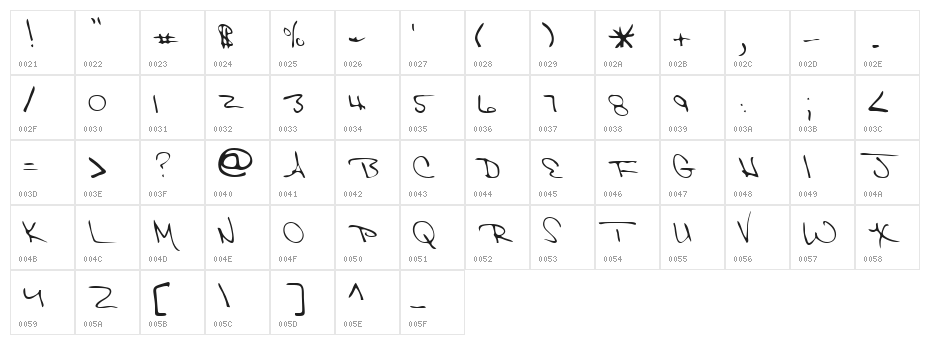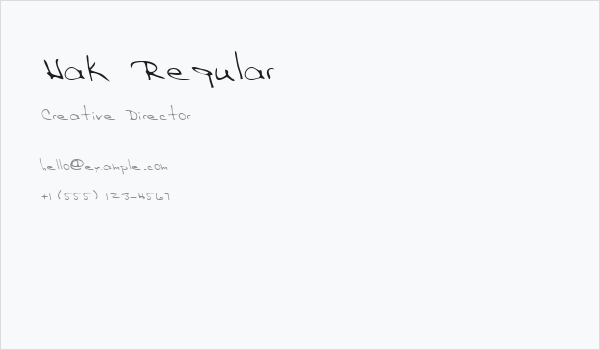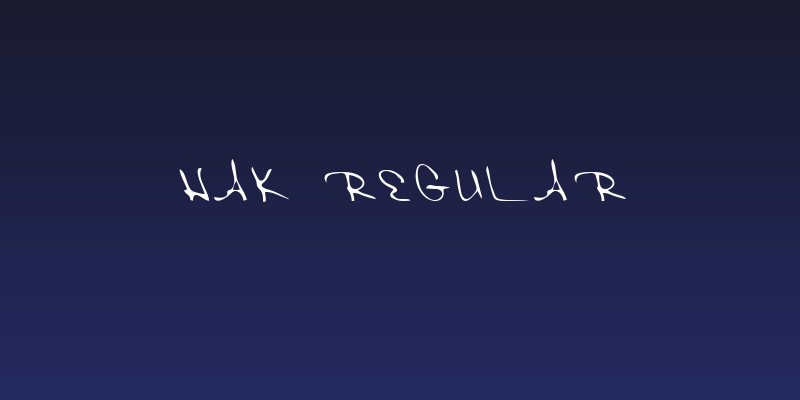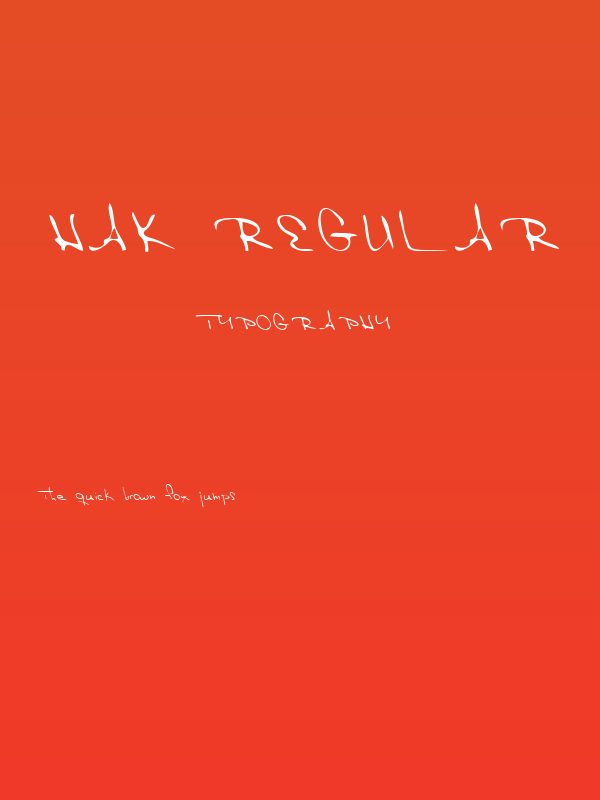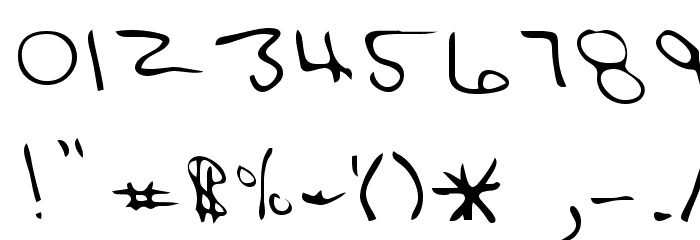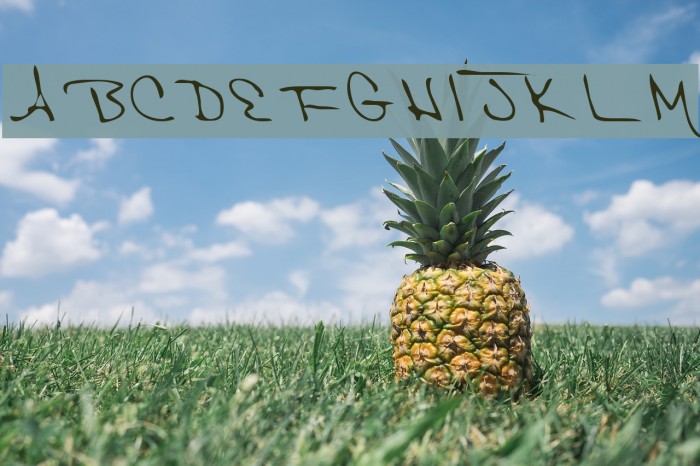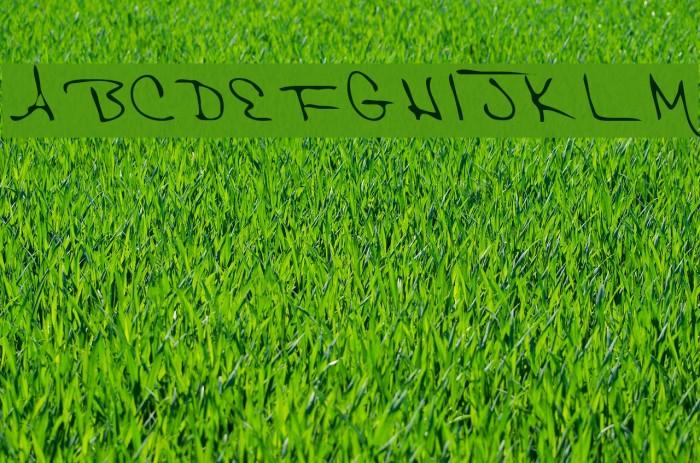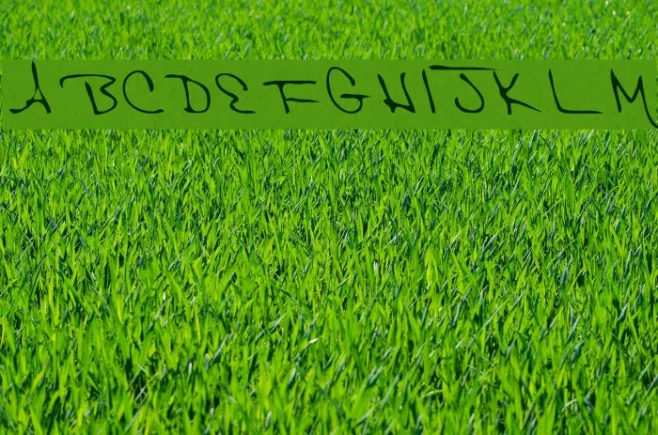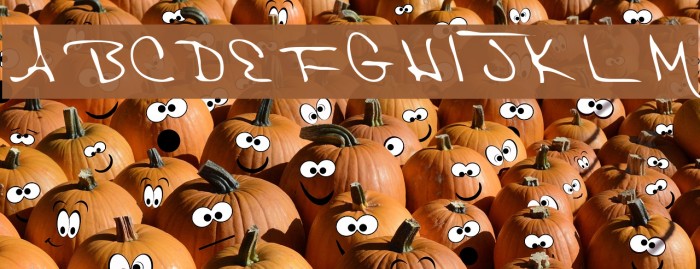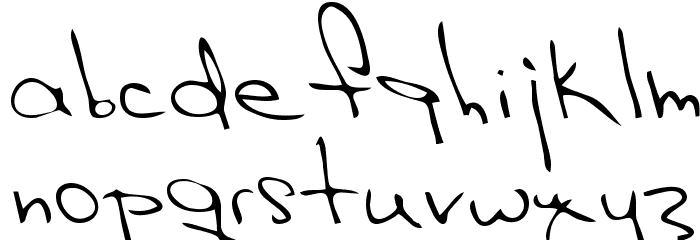
Hak Regular Font
Hak Regular Description
This font exhibits a playful and dynamic handwritten style, characterized by its fluid and irregular strokes that mimic the natural flow of handwriting. The letters are slightly slanted, adding a sense of movement and casual elegance. The uppercase and lowercase letters maintain a consistent style, with some variations in stroke thickness that add to its charm. The numbers and special characters follow the same whimsical design, making the font versatile for creative projects. Its unique appearance is suitable for designs that require a personal touch, such as invitations, greeting cards, and artistic branding.